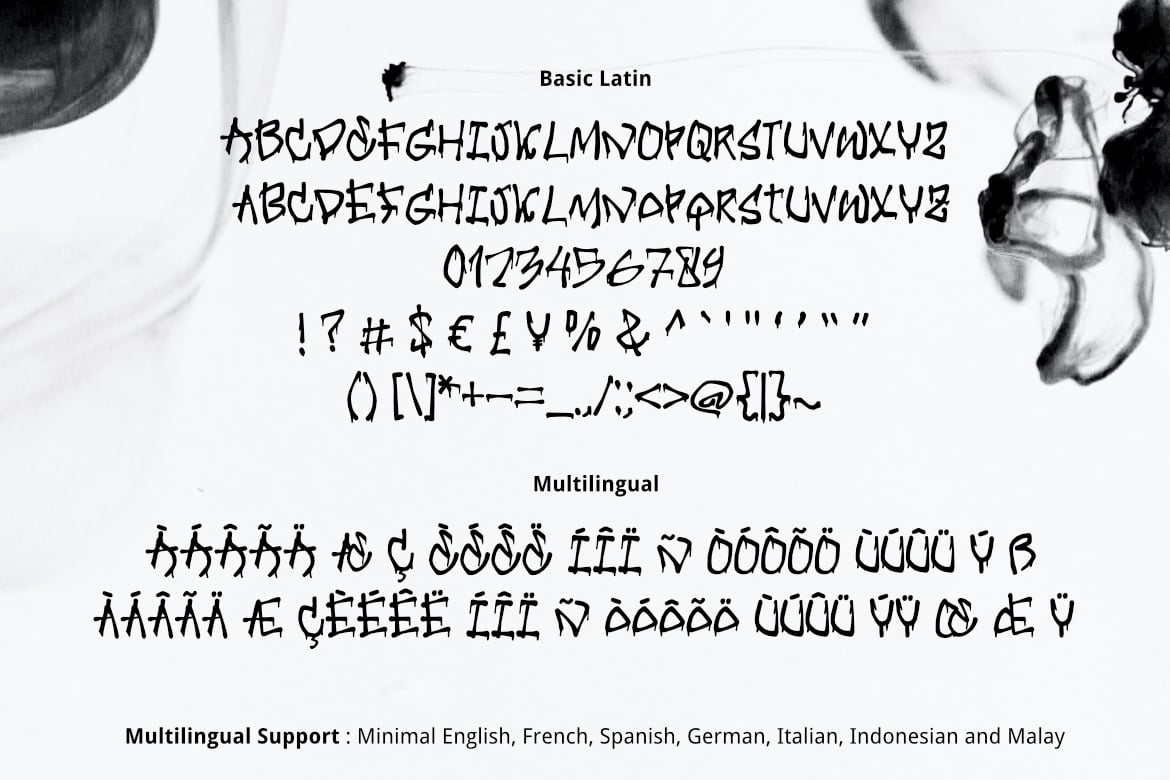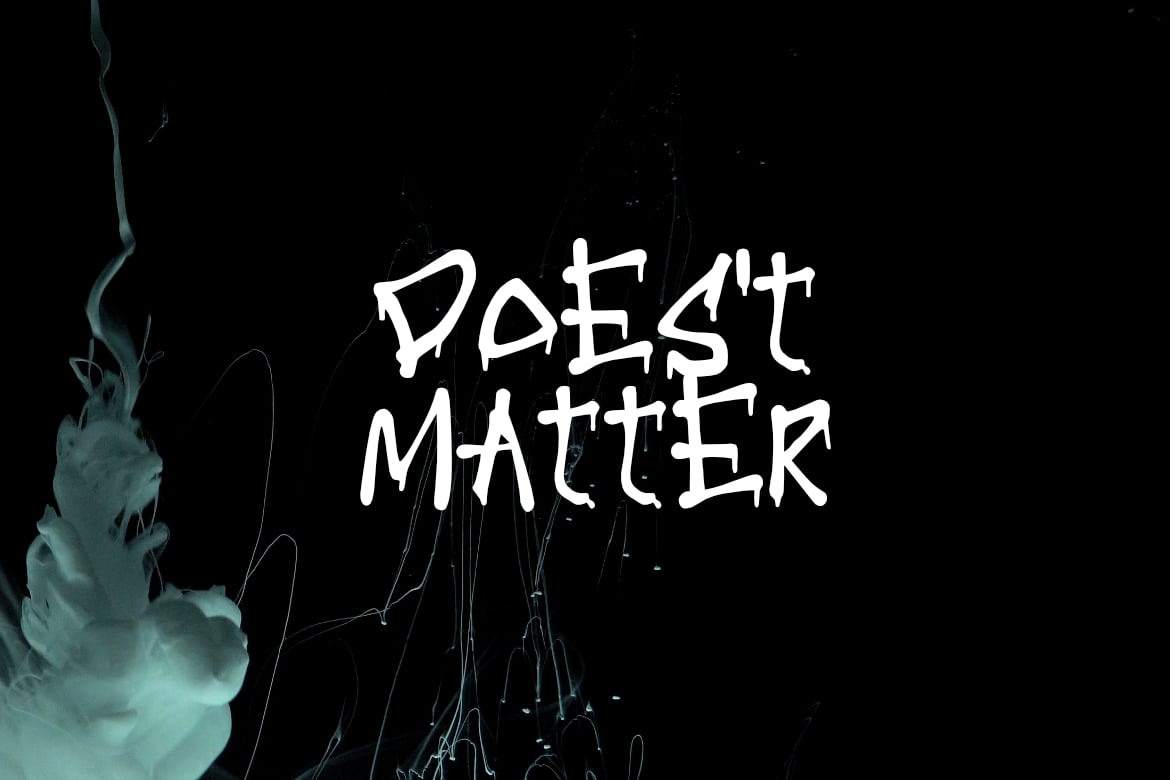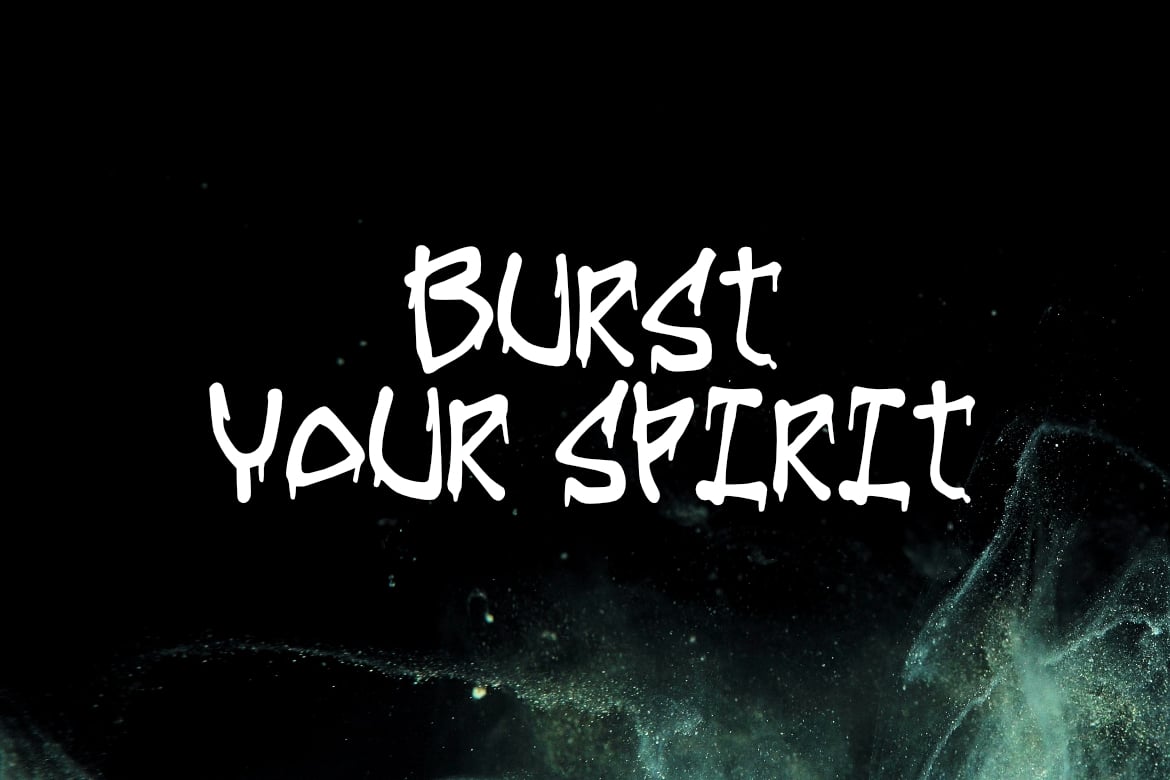
Dripping Ink Font
Dripping Ink is simple multipurpose handmade font, suitable for many project children book, quotes, logo , heading , title etc.
Basic Latin (Standard English character , number, symbol)
Multilingual Support  (minimal English, French, Spanish, German, Italian, Indonesian, Malay)